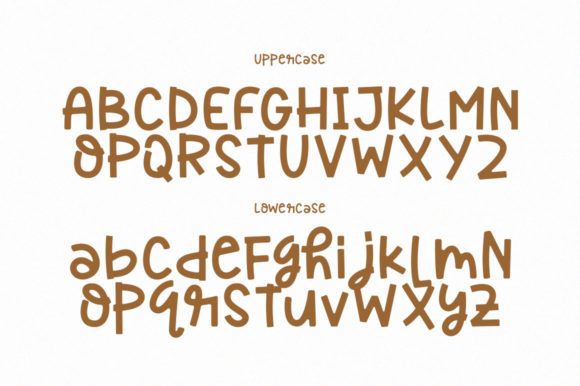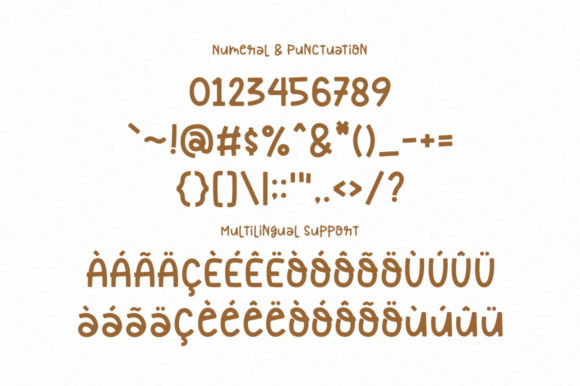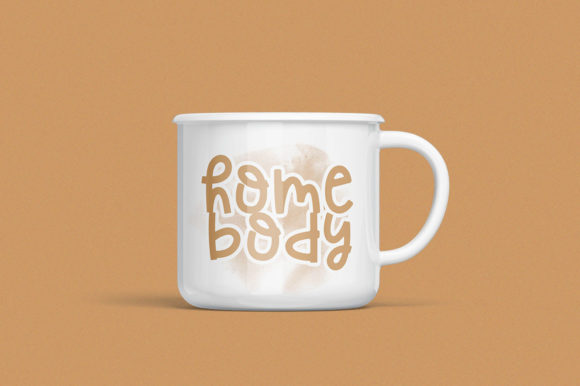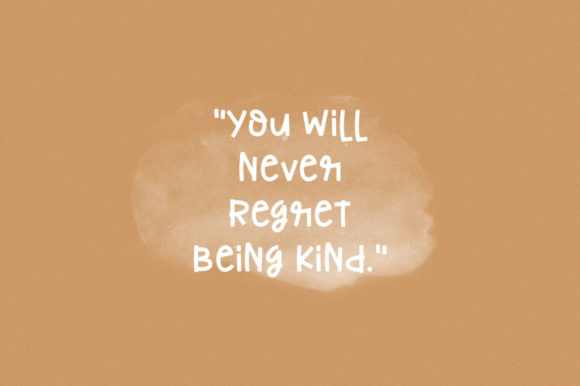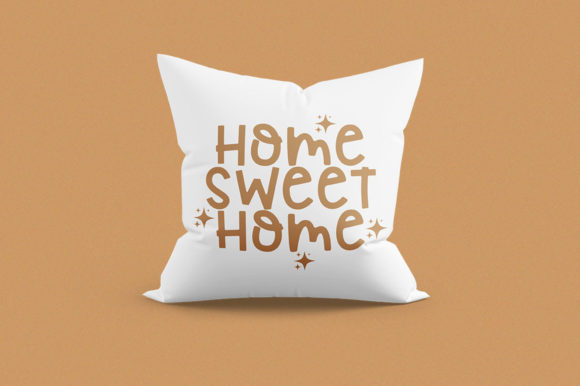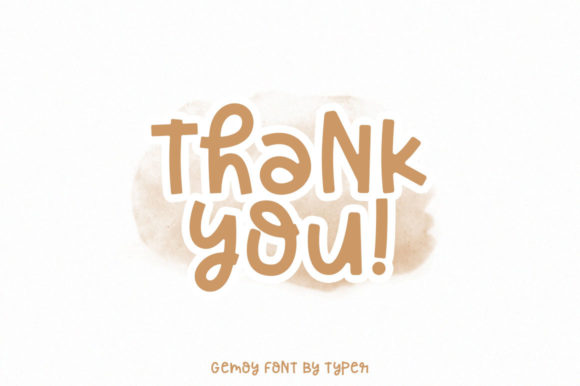
The Gemoy Font: A Playful Twist for Your Creative Projects
I’ll never forget the time I was working on a whimsical craft project, pouring my heart and soul into creating the perfect letterhead. But, as I scrolled through font after font, I just couldn’t find the right fit. That’s when I stumbled upon the Gemoy font, and it was love at first sight! 💕 This playful, quirky, and fun display font has been a game-changer for my designs, and I’m excited to share its charm with you.
An Honest Review of Gemoy Font
- ✅ Unique and original design that stands out from the crowd
- ✅ Highly legible, even at smaller sizes
- ✅ Perfect for titles, headings, and letterheads
- ✅ Quirky and playful vibe that’s sure to add personality to your designs
- ⚠️ May not be suitable for body text or long-form content due to its display font nature
- ⚠️ Limited availability of variations, which may limit its use in certain design contexts
The Story Behind Gemoy Font
Gemoy font was designed with one goal in mind: to create a playful, quirky font that would inspire creativity and add a touch of whimsy to any design. Its creator, a talented typographer, drew inspiration from classic children’s books, vintage posters, and modern digital design. The result is a unique and original font that’s perfect for crafty ideas, letterheads, and titles.
| Font Name | Gemoy Font |
| Author | typerstd |
Q: What type of projects is Gemoy font best suited for?
A: Gemoy font is perfect for creative projects, such as letterheads, titles, headings, and stationery. Its playful and quirky vibe makes it ideal for kid-friendly designs, party invitations, and social media graphics.
Q: Is Gemoy font available in different variations?
A: Currently, Gemoy font is available in a single style. However, its creator may release additional variations or weights in the future, so keep an eye on their website for updates!